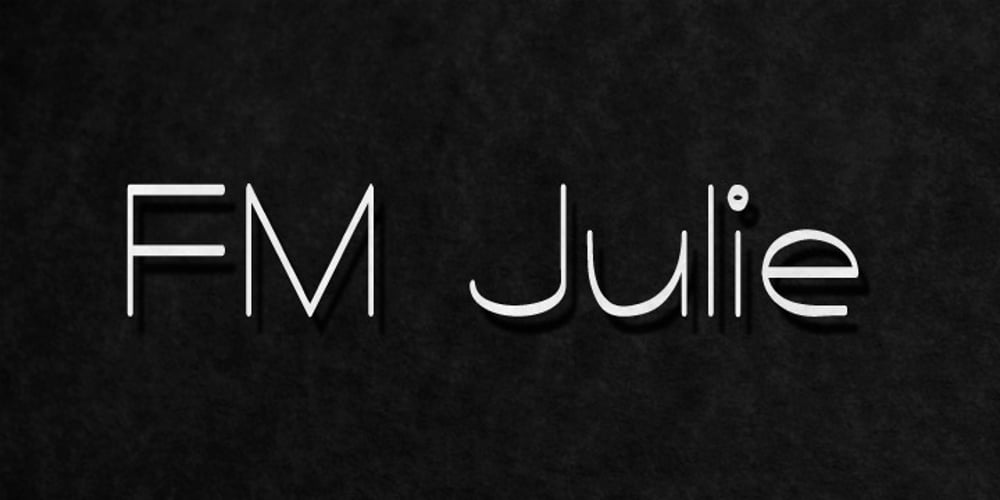
FM Julie Font Family was designed by Elwin Berlips and published by FontMeister. FM Julie contains 1 styles and family package options. ‘Julie’ was created with readability in mind, wide and with a handwritten touch. Julie gives a warm and friendly feeling to your layout. You can use these fonts to create posters, greeting cards, scrapbooks, CD labels, T-shirts, coffee mugs, digital videos websites and banners.